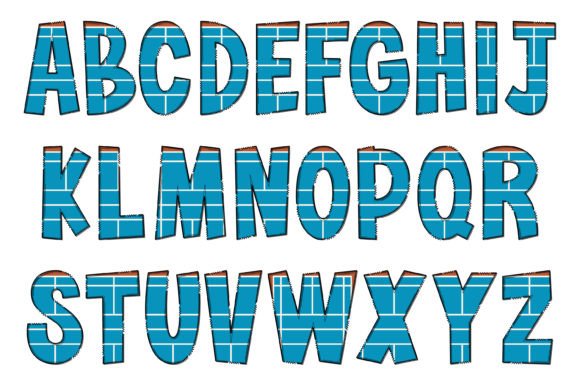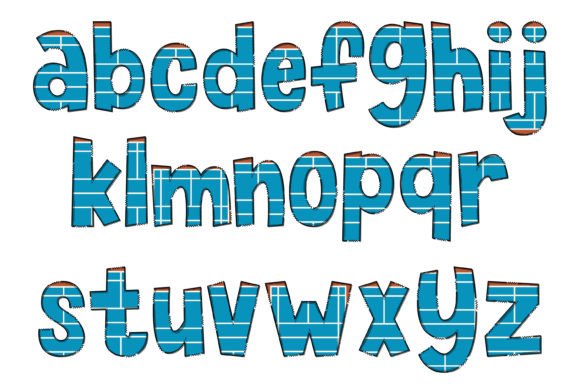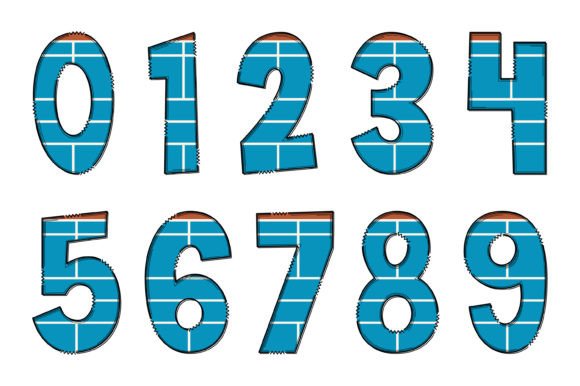
The Playful World of Badminton Font
I’ll never forget the time I was working on a children’s book design project, and my client asked me to create a fun and engaging title page. I had a blast brainstorming ideas, but when it came to choosing a font, I hit a roadblock. That’s when I stumbled upon the Badminton font, and it instantly brought my design to life! 🎉
A Personal Review of Badminton Font
As a designer, I appreciate fonts that are versatile and easy to work with. Here’s what I love about Badminton font:
- ✨ Whimsical and playful feel that’s perfect for children’s books, posters, and invitations
- ✅ Easy to read, even at smaller font sizes
- 💫 Highly versatile and adaptable to various design styles
While Badminton font is amazing, it’s not without its quirks:
- 🤔 Limited availability of OpenType features, which may limit advanced typographic control
- ⚠️ Some characters may appear slightly inconsistent in certain font sizes or styles
The Designer Inspiration Behind Badminton Font
Badminton font was inspired by the classic sport of badminton, with its lighthearted and carefree spirit. The font’s designer aimed to capture the playful essence of the game, while creating a versatile and easy-to-read font that’s perfect for a range of design applications.
| Font Name | Badminton Font |
| Author | Imagination Switch |
| What type of designs is Badminton font best suited for? | Badminton font is perfect for designs that aim to convey a playful or artistic feel, such as children’s books, posters, invitations, and greeting cards. |
| Is Badminton font suitable for body text? | While Badminton font is easy to read, it’s best suited for headlines, titles, and short paragraphs. For longer body text, a more traditional font may be more suitable. |